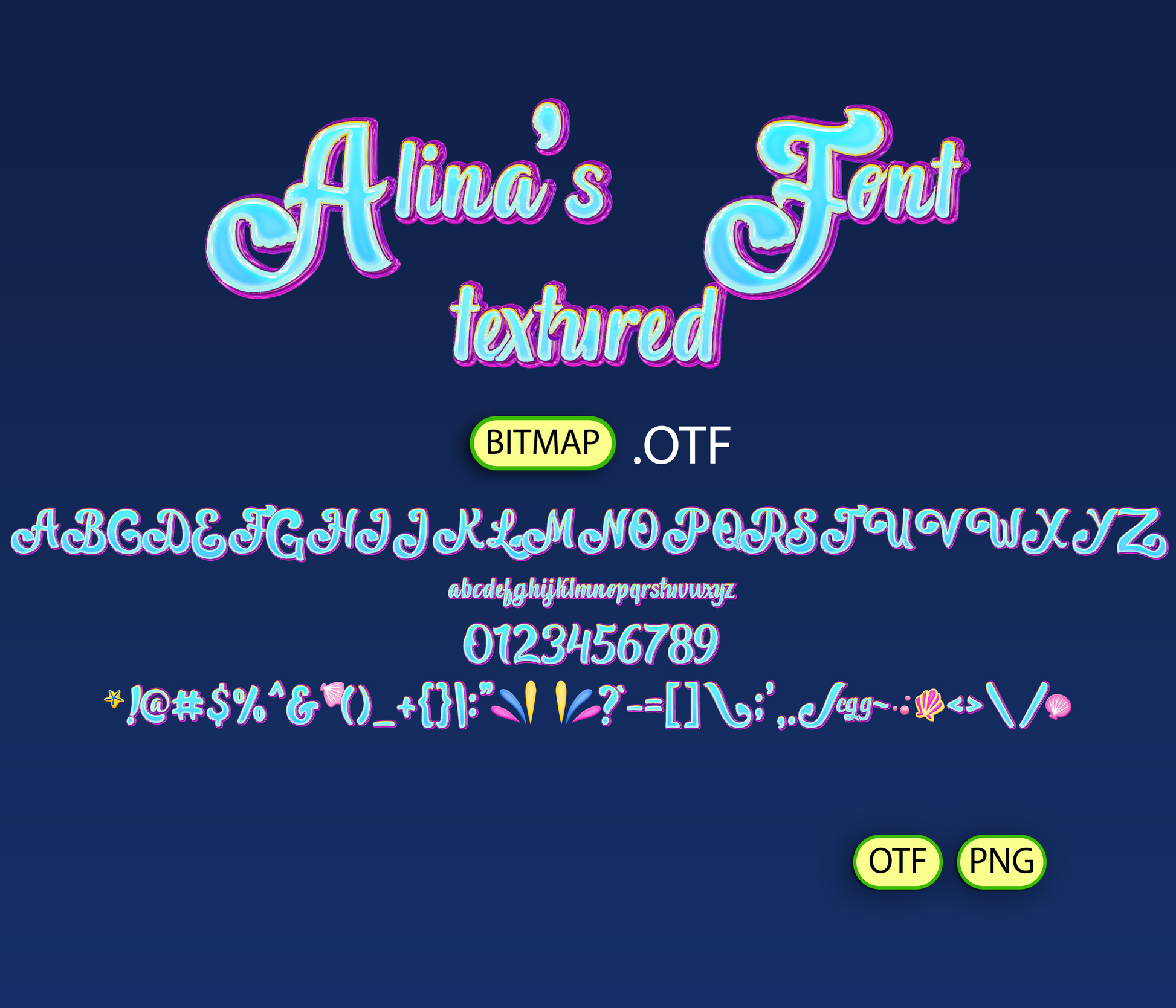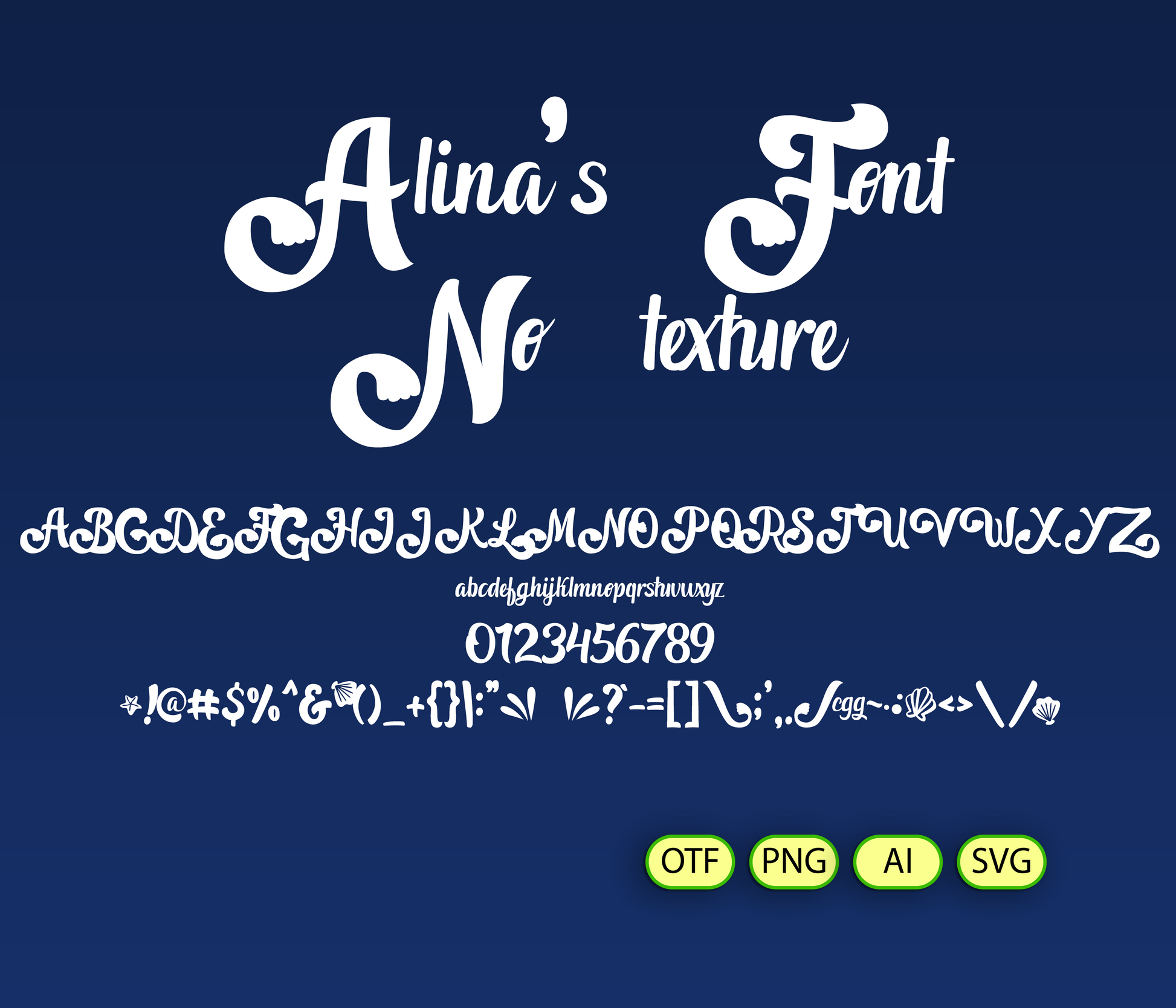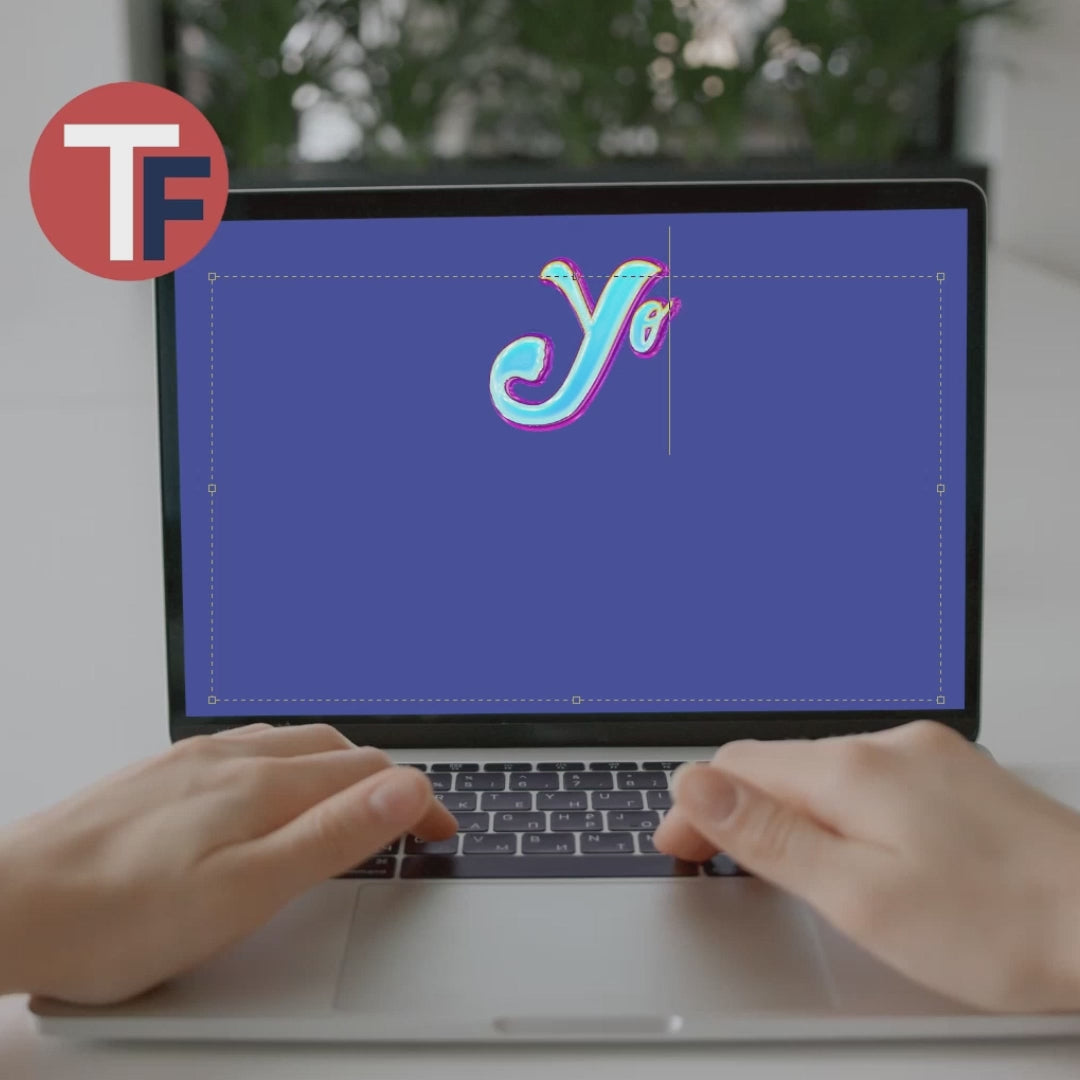
Enchanted Sea Princess Font Textured
Dive into the magical underwater world of mystical sea creatures with our specially designed font. This typeface captures the essence of enchanting aquatic tales, known for their beautiful melodies and shimmering scales. Perfect for designers, party planners, and fans of undersea fantasies, this font brings the whimsical, dreamy spirit of mermaid lore to your creative projects.
What font is the Enchanted Sea Princess font?
Envision a typeface that embodies the ethereal beauty of merfolk - flowing, elegant, and sparkling with underwater charm. Our font features graceful, fluid letterforms that mirror the gentle waves of the ocean, complete with subtle flourishes reminiscent of fish tails and seashells. It includes a comprehensive character set with alphabets, numbers, and special symbols, providing a versatile solution for various design needs.
What You Can Do With Enchanted Sea Princess Textured Font
This versatile font is ideal for a range of creative applications:
- Themed Party Invitations: Create stunning invites for undersea-inspired celebrations
- Children's Products: Design book covers, stationery, or educational materials with a touch of mermaid magic
- Digital Content: Enhance websites, blogs, and social media with dreamy headers and graphics
- Merchandise Design: Perfect for creating t-shirts, accessories, and collectibles for fantasy enthusiasts
- Event Decorations: Develop banners, posters, and signage for aquatic-themed events or beach parties
- Beauty and Cosmetic Branding: Use for logos or promotional materials in mermaid-inspired beauty products
- Creative Projects: Ideal for scrapbooking, DIY crafts, and artistic endeavors inspired by ocean mythology
- Theatrical Productions: Create promotional materials for underwater-themed stage shows or ballets
- Textured and Non-Textured Variants: Available in both a shimmering, pearlescent style reminiscent of mermaid scales, and a clean version for versatile use
- Extensive Character Set: Offers a wide range of characters for complete design flexibility
The Enchanted Sea Princess font is more than just a typeface; it's a celebration of the timeless allure of mermaid tales that have captivated imaginations for generations with their blend of mystery, beauty, and underwater wonder.